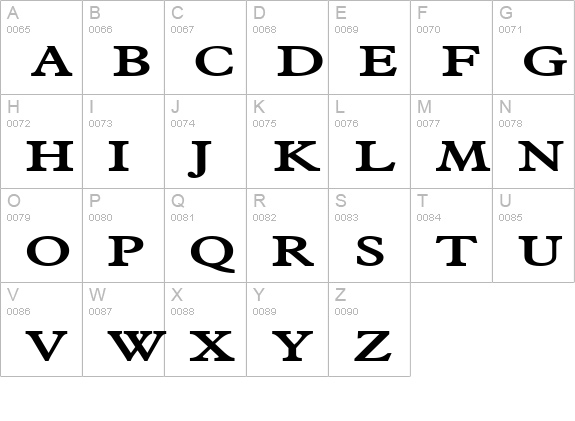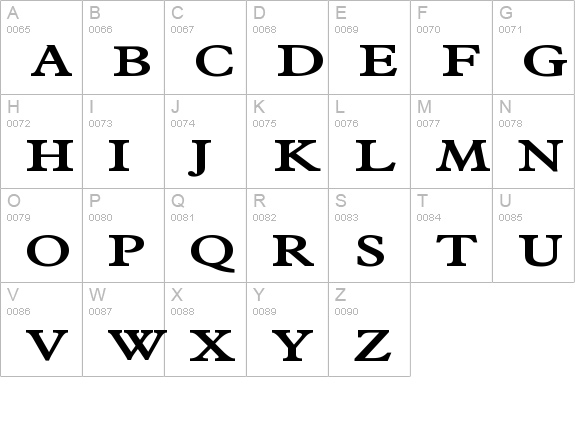
Nadine Bold is a strong, high-contrast variant in the Nadine typeface family \xE2\x80\x94 well suited to headlines, attention-grabbing titles, and strong calls-to-action.
Nadine Bold is a striking and modern font that exudes confidence and sophistication. Its bold and sleek design makes it perfect for creating eye-catching headlines, logos, and branding materials. The strong lines and clean curves of Nadine Bold give a sense of power and elegance to any design project. What's even better is that Nadine Bold is available for free download at FontsMarket.com. This means you can easily access this premium font without any cost, making it a valuable addition to your font collection. With Nadine Bold, you can elevate your designs and make a bold statement without breaking the bank. Download it today and see the impact it can have on your projects!